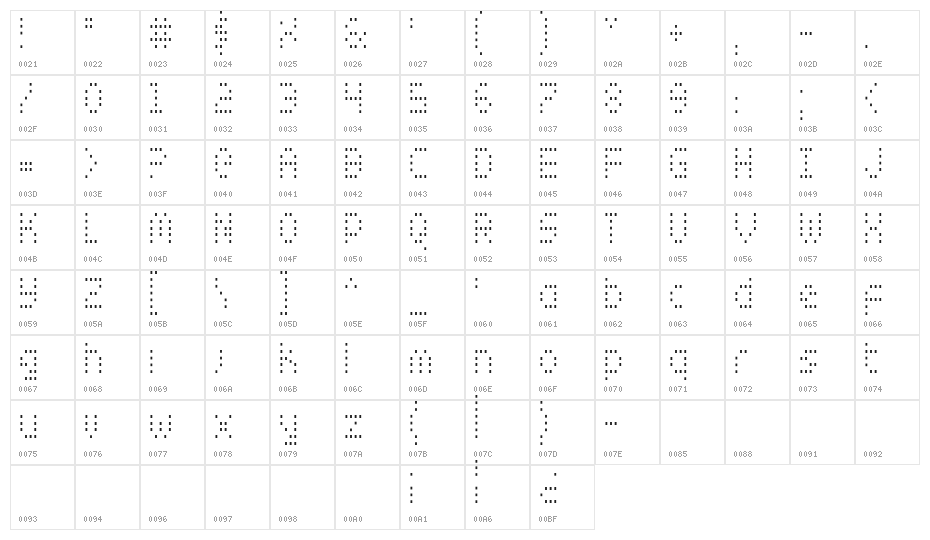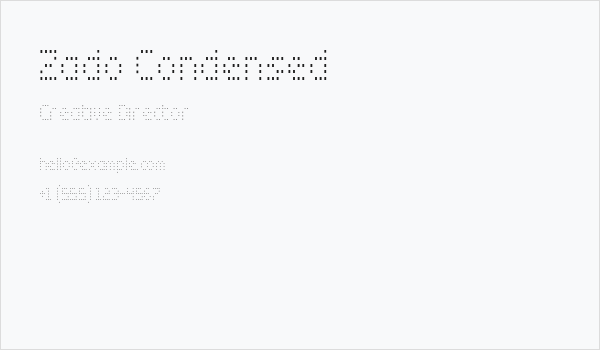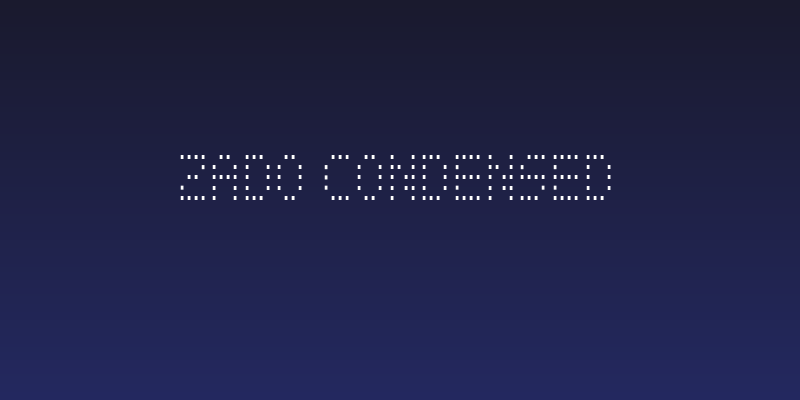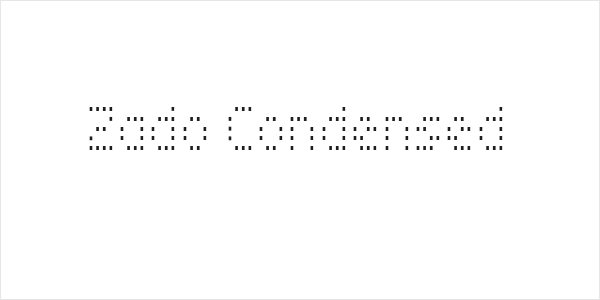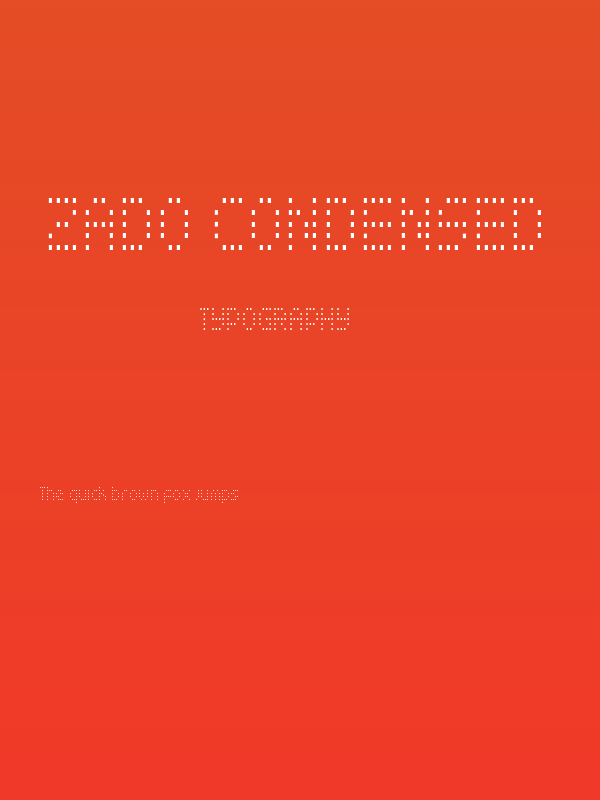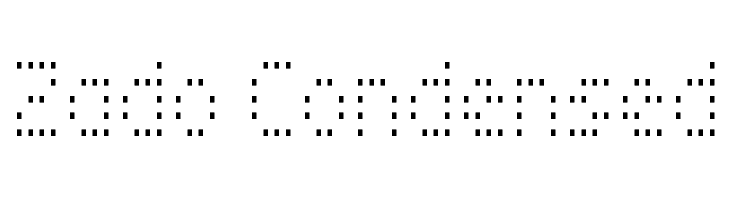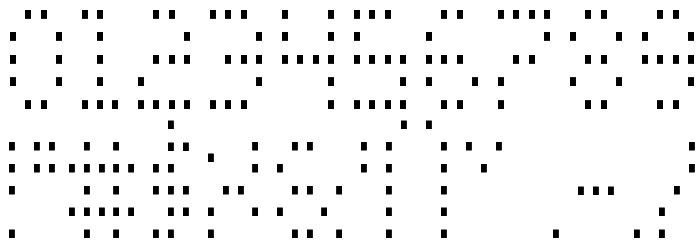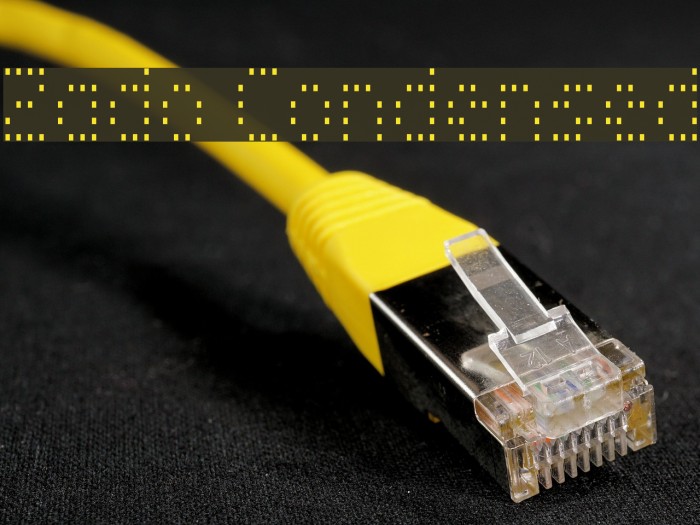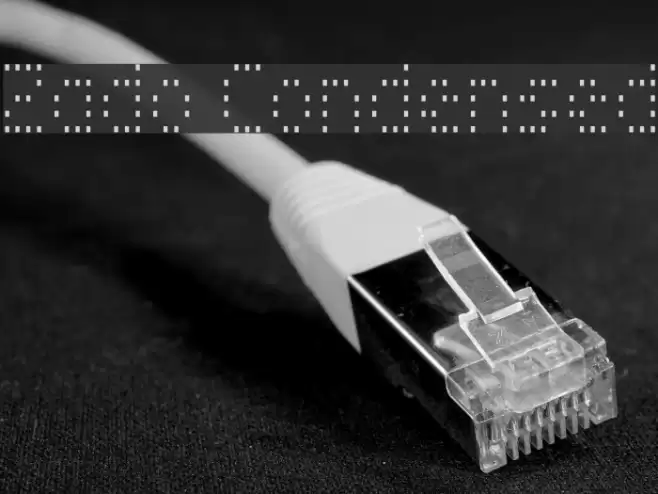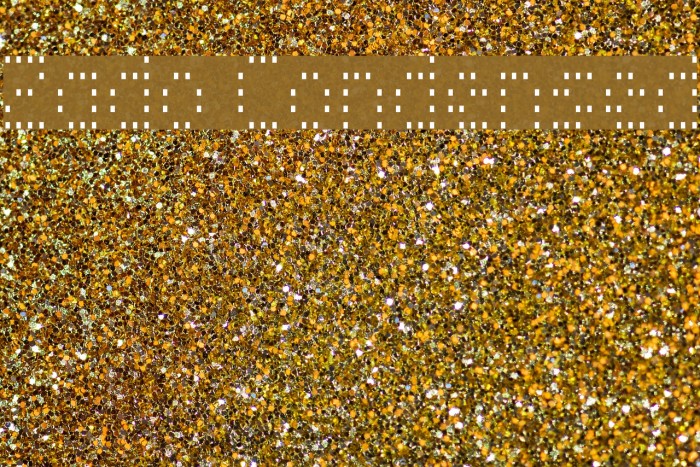
Zado Condensed Font
Zado Condensed Description
This font features a unique dot matrix style, reminiscent of digital displays and retro computing. Each character is constructed from a grid of dots, creating a pixelated appearance that is both nostalgic and modern. The design is highly geometric, with uniform spacing and alignment, giving it a structured and precise look. The condensed nature of the font allows for efficient use of space, making it ideal for environments where text needs to be compact yet legible. The font maintains clarity and readability despite its unconventional form, making it suitable for a variety of creative applications.
| Use Case | Headlines, Logos, Digital displays |
| Proposed Projects | Ideal for digital displays, retro-themed designs, tech-related branding, and creative projects requiring a unique, modern touch. |